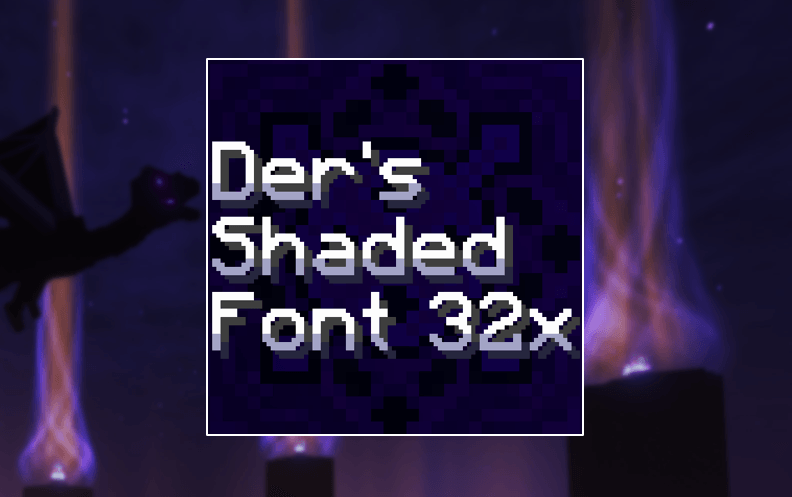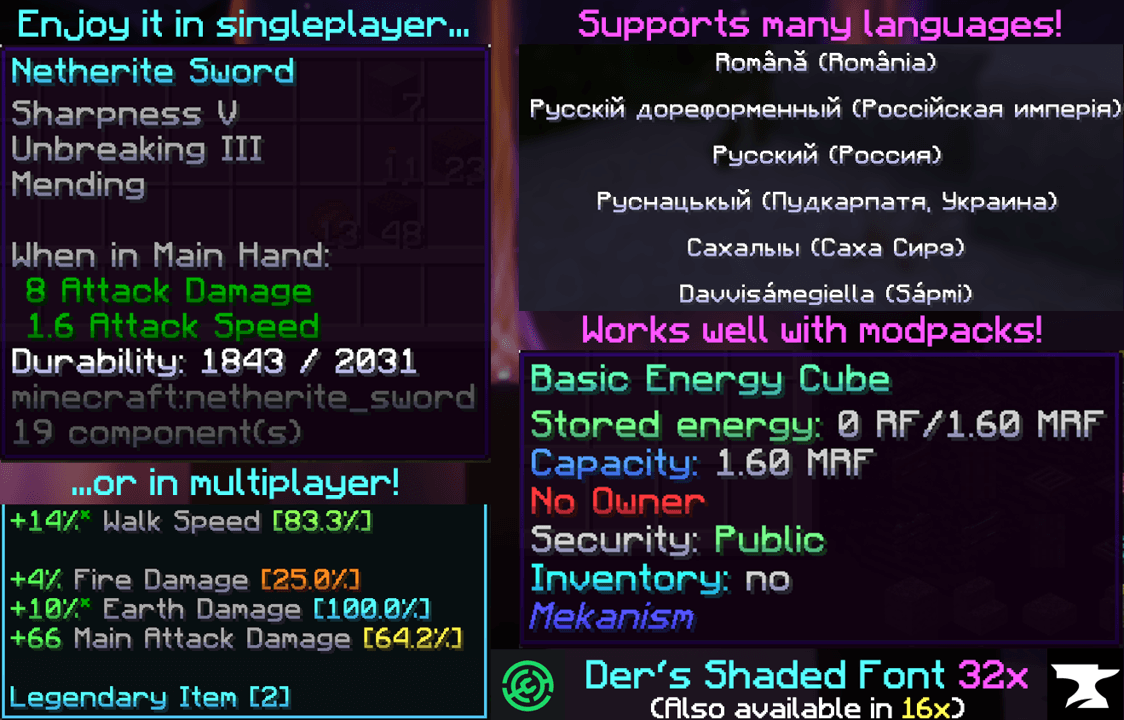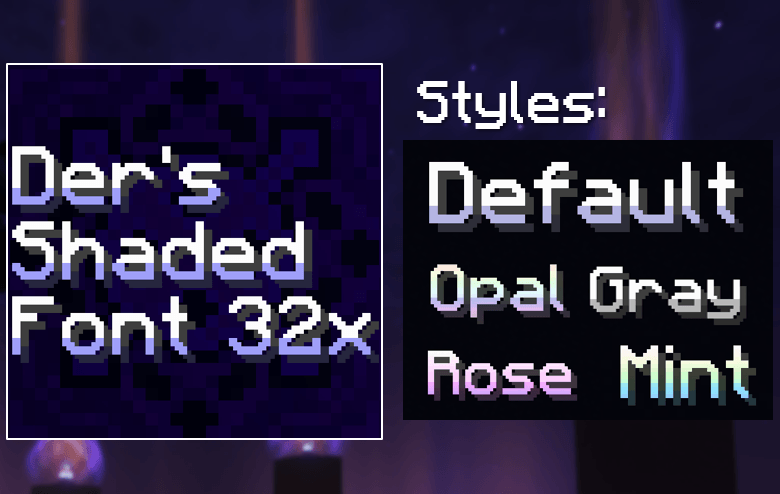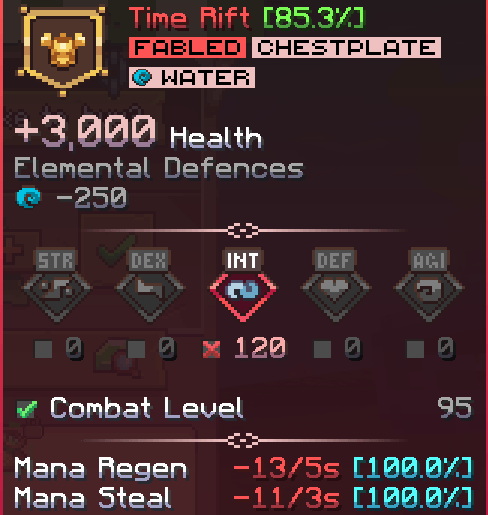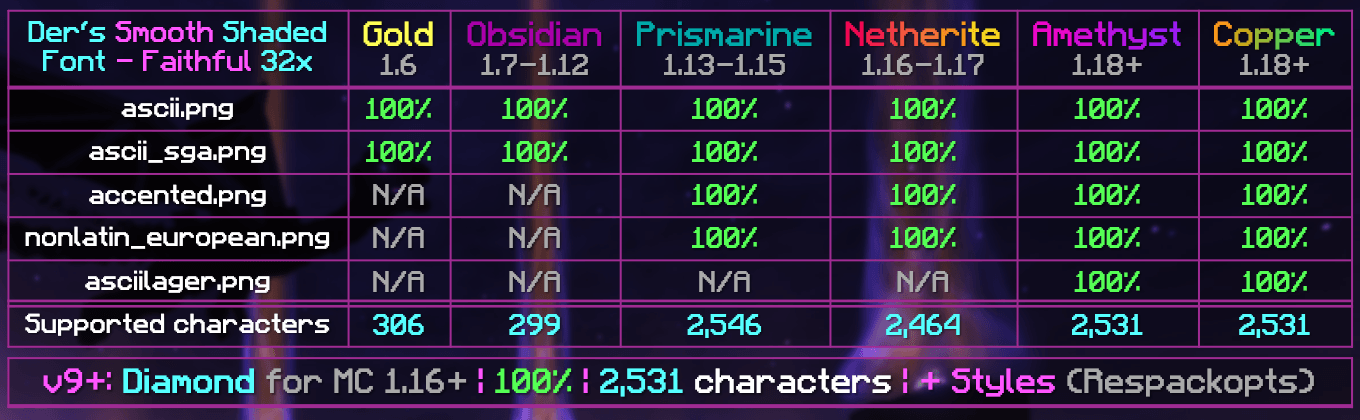
Der’s Smooth Shaded Font (Faithful 32x) modifies Faithful 32x’s Font. It adds colored shading to the lower parts of characters, giving the game a refreshing look. This pack supports over 11,000 characters, various languages, and many symbols.
- Supports all of Faithful 32x’s font characters.
- Includes over 8,500 shaded glyphs on 37 unicode pages.
- Offers extensive support for many languages and symbols.
- Fixes vanilla issues with incorrect character widths.
- Supports popular servers like Hypixel and Wynncraft.